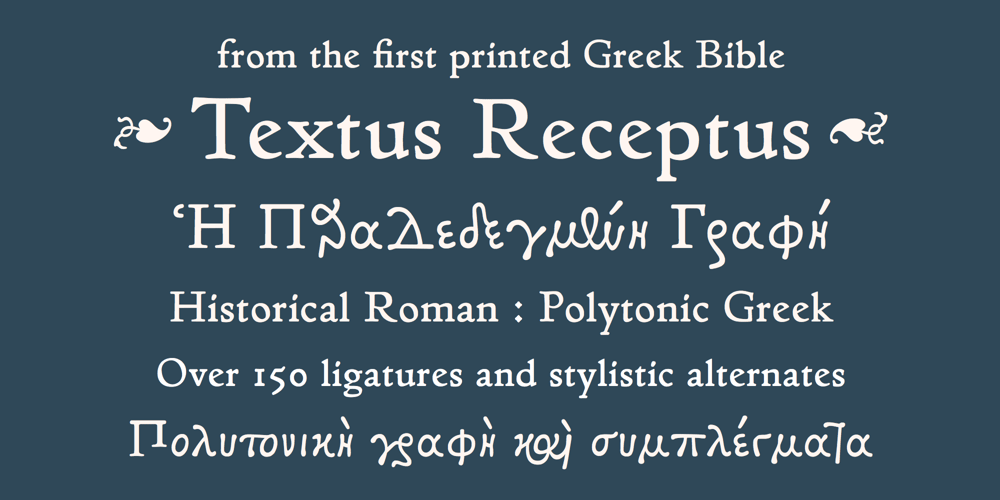
Textus Receptus
Textus Receptus font
Textus Receptus Font Family was designed by Rolf Noyer and published by Lascaris. Textus Receptus contains 1 styles and family package options. Textus Receptus is a historical revival based on the Roman and Greek types used by Johann Bebel (and later also Michael Isengrin) in Basel in the 1520s.The Roman is a low-contrast medium-to-heavy Venetian reminiscent of Jenson or Golden Type. The unusual polytonic Greek, not previously digitized, is lighter in weight and supplied with all the ligatures and variants of the original. Yet when used without historial forms the Greek has a surprisingly contemporary feel: it’s quirky and playful as a display face, but still easily legible in running text.Bebel’s Greek extended and refined the one used for the first printed Greek New Testament, Desiderius Erasmus’ Novum Instrumentum Omne, published in Basel in 1516 by Johann Froben. The name of the font was chosen in honor of this edition, which was so influential that it was later called the Textus Receptus (the “received text”), serving as the basis for Luther’s German Bible in 1522 and much subsequent scholarship for over 300 years.Following 16th century practice, Textus Receptus contains 130 ligatures and stylistic alternates for Greek, accessible either with OpenType features or with five stylistic sets. The Greek capitals, often printed bare in early editions, have been equipped with accents and breathings for proper polytonic or monotonic typesetting.The Roman includes both standard and historical ligatures along with the abbreviations and diacritics typically employed in early printed Latin. For expanded language coverage it has the entire unicode Latin Extended‑A range and part of Latin Extended-B. The capital A is surmounted by a horizontal stroke, as in some 16th century Italian designs, and the hyphen and question mark have both modern and historical form variants. Mark-to-base positioning correctly renders fifty combining diacritics, and with mark-to-mark positioning the most common diacritics may be stacked, permitting, for example, accents and breathings on top of length-marked vowels. Numerals include old-style, proportional lining and tabular lining.For further details, please download the 31-page Textus Receptus User Guide.